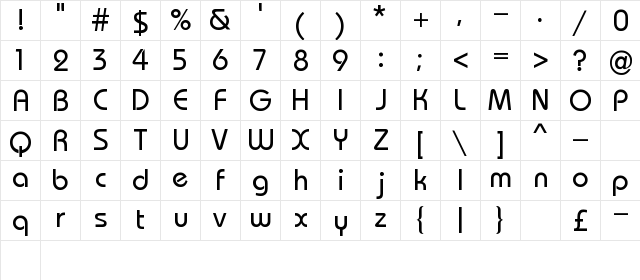
Casa Regular
Design Context for Casa Typeface
Casa takes a measured approach to typography — its balanced proportions and neutral character make it a reliable workhorse for both digital and print work.